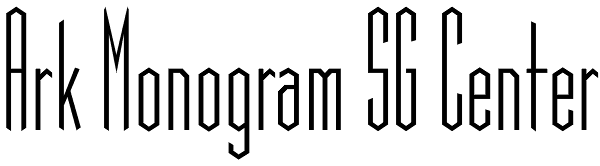
Ark Monogram SG
Ark is a combination monogram set based on the ATF Virkotype design. By combining variously shaped characters, you can produce initials within an oval frame. Just select a left-hand letter, a center letter, and a right-hand letter. Then place all...
Ark Monogram SG Center
Ark Monogram SG Left
Ark SG Oval Frames
Ark Monogram SG Right